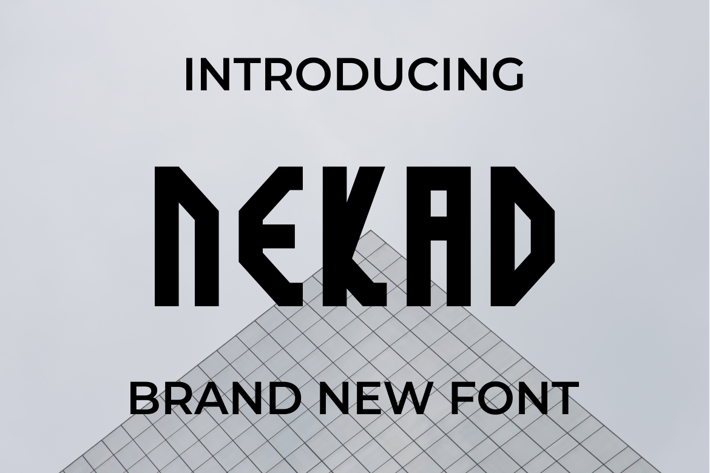
Nekad Font
Introducing our new product Nekad Font - Modern Font
Nekad Font - Modern Font is a bold and authentic display font. The font is suitable for any branding project like logo, t-shirt printing, esport, and many more. outstanding in a wide range of contexts.